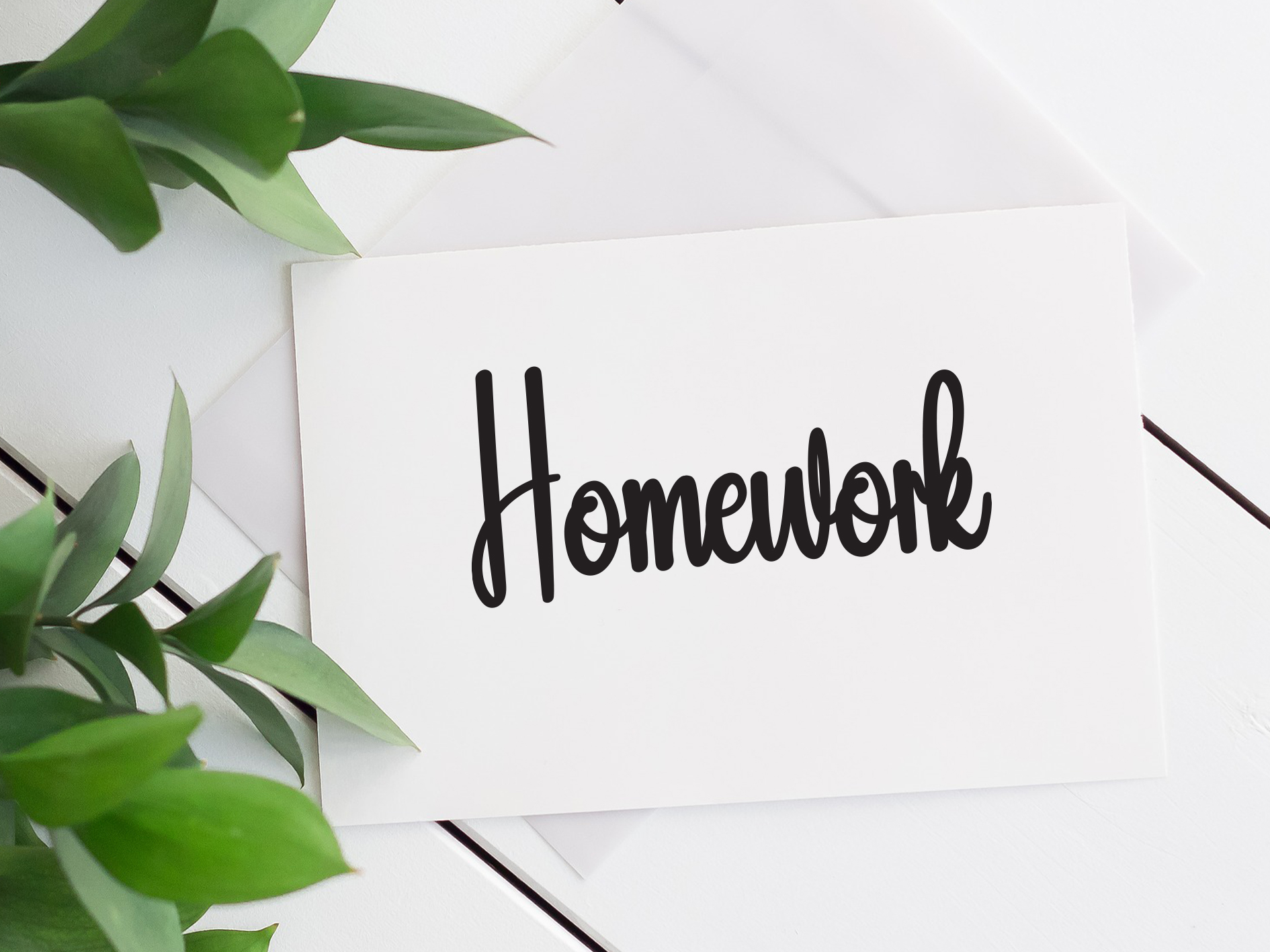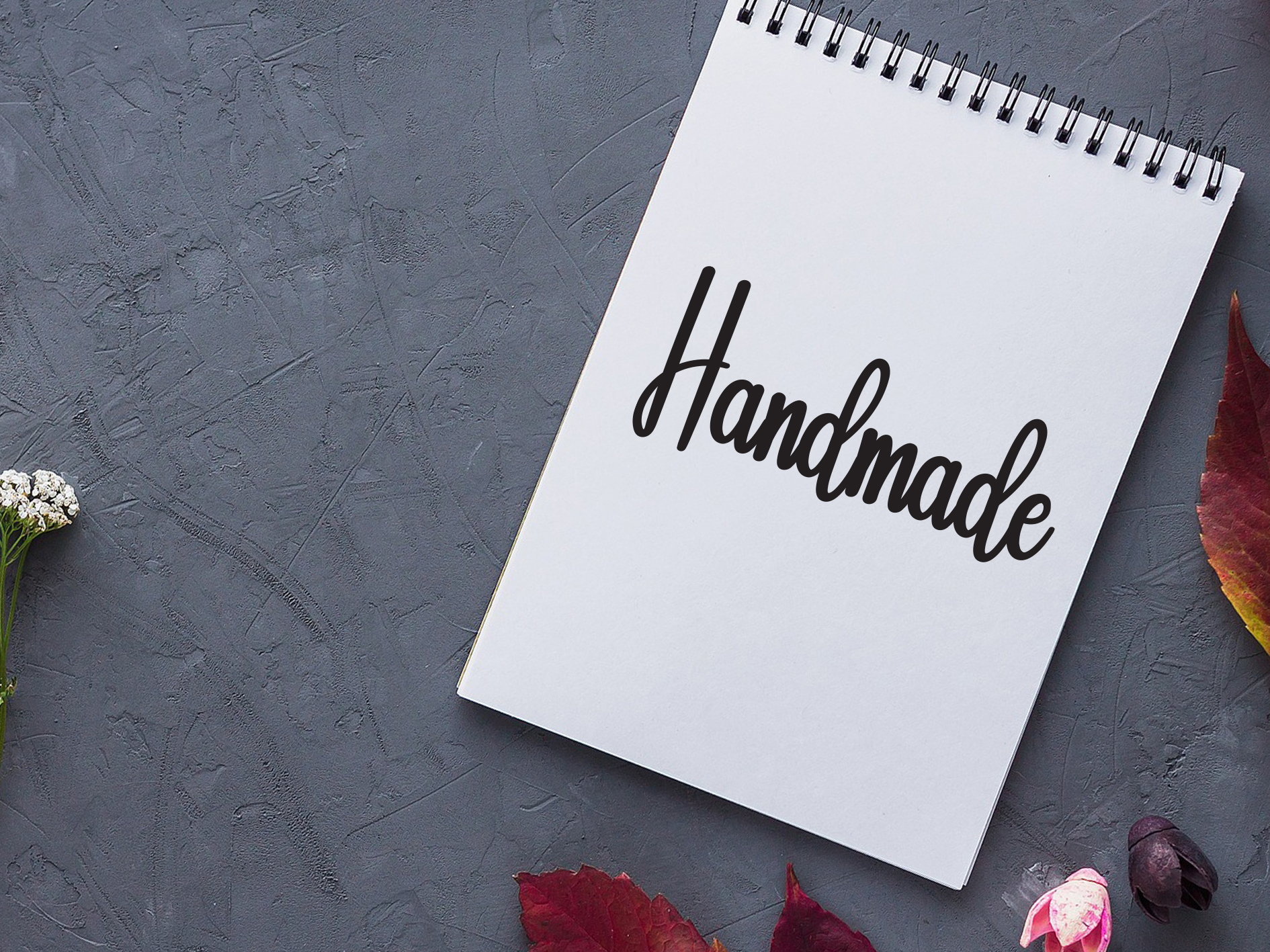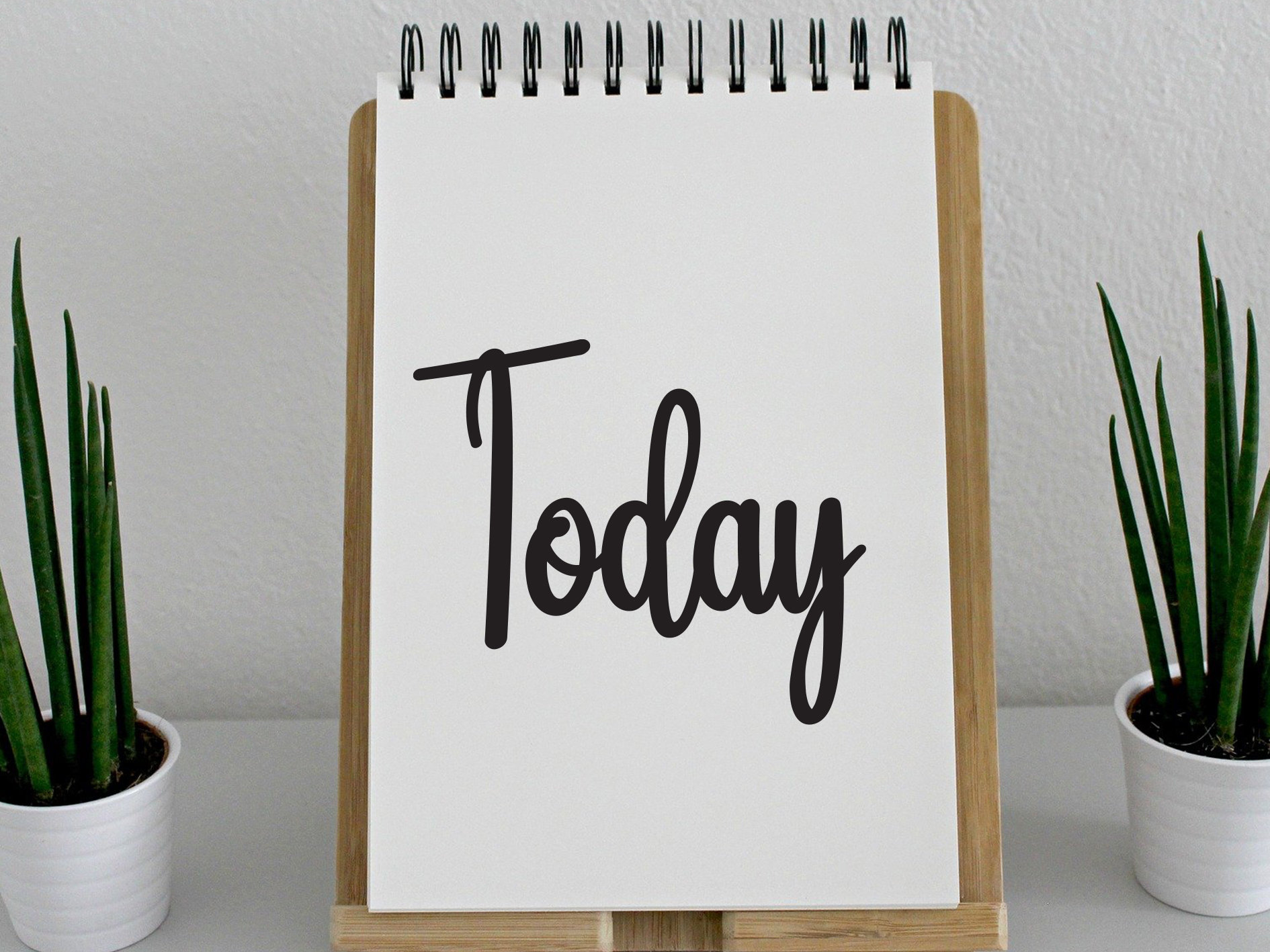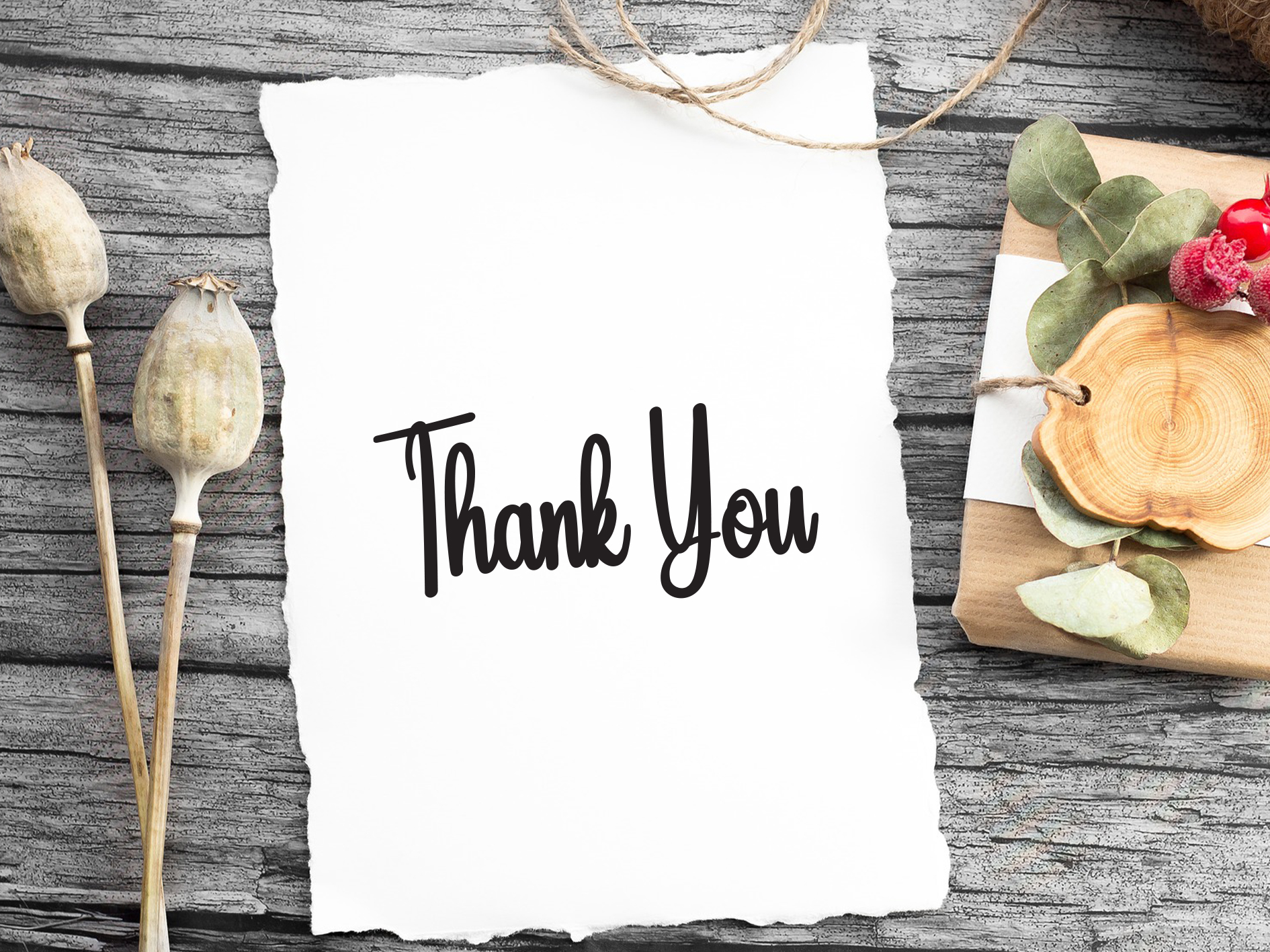
Sweety Font
Sweety Script Font
This is a beautiful and unique handwritten font, with grooves crafted to produce beautiful lettering for use across a wide variety of products as desired. This is the product link; Ini adalah font tulisan tangan yang indah dan unik, dengan lekukan yang dibuat untuk menghasilkan tulisan yang indah untuk digunakan di berbagai jenis produk sesuai keinginan. Ini link produknya; https://www.creativefabrica.com/product/sweety-13/ref/1679118/